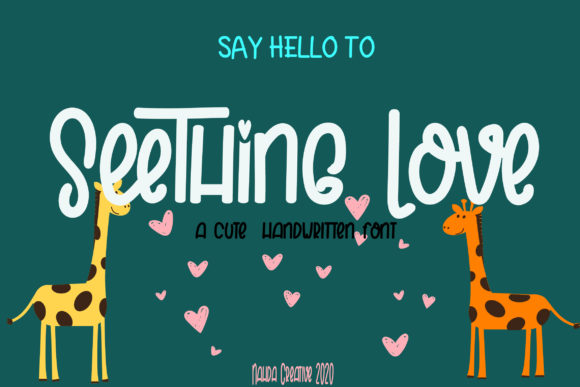
Dive into the enchanting embrace of Seething Love, a captivating script font that will set your heart aflutter! With its warm and approachable curves, this handwritten gem exudes a delightful charm that will add a touch of whimsy to any project.
Indulge in the boundless creativity that Seething Love unlocks. Its effortless flow invites you to express your emotions with flair, making it the perfect choice for wedding invitations, heartfelt letters, or whimsical social media posts.
But Seething Love's allure extends beyond its aesthetic appeal. Crafted with meticulous care, its seamless readability ensures your message shines through with clarity and grace. Dive into a world of storytelling and immerse your readers in the magic of your words.
Don't settle for ordinary fonts. Embrace the extraordinary with Seething Love, the enchanting script that will ignite your inspiration and captivate your audience. Let its timeless beauty elevate your designs to new heights, creating unforgettable experiences that touch the heart.